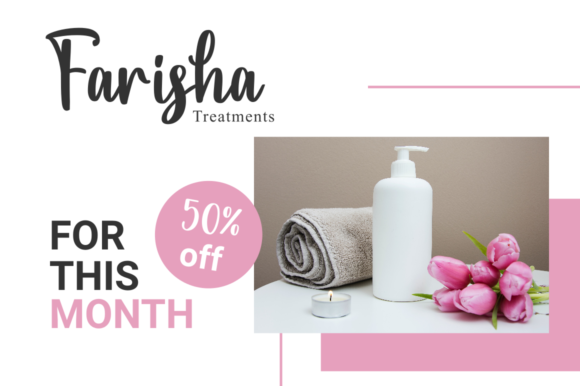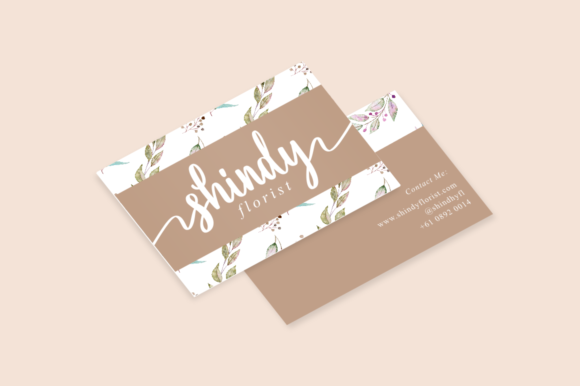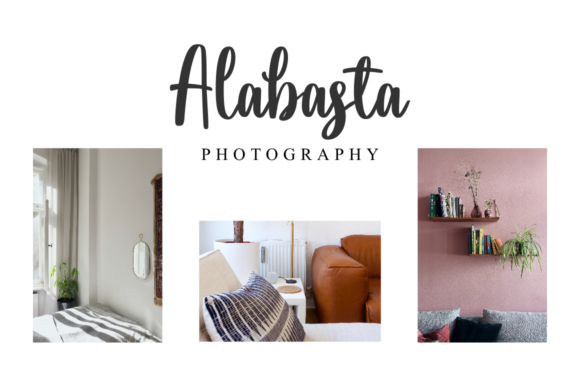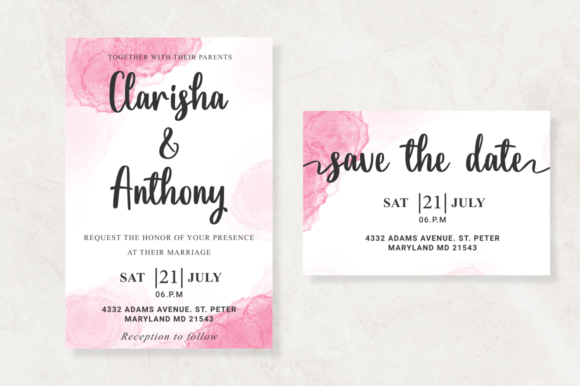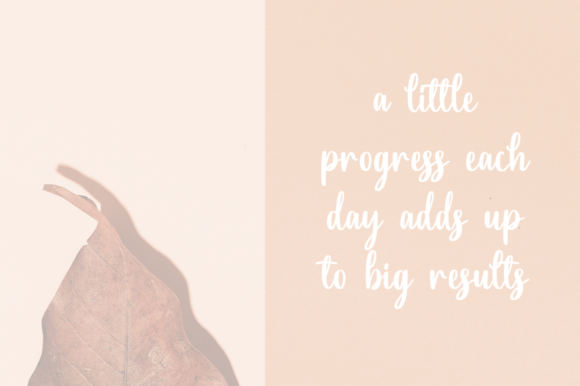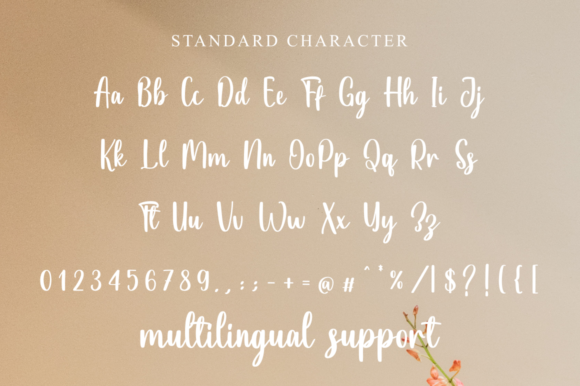
Unlock the Power of Handwritten Charm with Baishy Font
Have you ever been struck by a burst of creative inspiration, like a ray of sunshine on a cloudy day? That’s exactly what happens when you stumble upon the perfect font for your next design project. For me, it was the moment I laid eyes on the beautiful Baishy Font.
Baishy Font is a stunning, timeless handwritten font that’s perfect for creating eye-catching logos, branding, and quotes. Its unique and beautiful touch brings designs to life, making it a valuable asset for any designer. With its PUA encoding, you can easily access all the glyphs and swashes, giving you endless possibilities to experiment and create something truly special.
Whether you’re a seasoned pro or just starting out, Baishy Font is sure to become your go-to choice for adding a touch of personality to your designs.
- Unique Characteristics: Baishy Font features a clean and modern design with a subtle rounded edge, making it easy to read and visually appealing.
Baishy Font Review
As a designer, I was excited to try out the Baishy Font and see what it had to offer. Overall, I was impressed with the font’s unique aesthetic and versatility.
Here are some things that worked well for me:
- ✨ The Baishy Font has a fun, playful feel that’s perfect for creative projects and designs that need a bit of whimsy.
- ✨ The font’s wide range of weights and styles makes it easy to find the perfect fit for your design.
- ✨ The font is highly customizable, with options for adjusting the spacing and alignment of characters.
- ⚠️ The Baishy Font may not be the best choice for formal or professional designs, as it can come across as a bit too playful or casual.
- ⚠️ Some users may find the font’s unique aesthetic to be a bit too distracting or overwhelming.
Overall, I would give the Baishy Font a solid 4 out of 5 stars. While it may not be perfect for every design project, it’s a great choice for creative and playful designs where you want to add a bit of personality and flair. With its wide range of weights and styles, customization options, and unique aesthetic, the Baishy Font is definitely worth considering for your next design project.